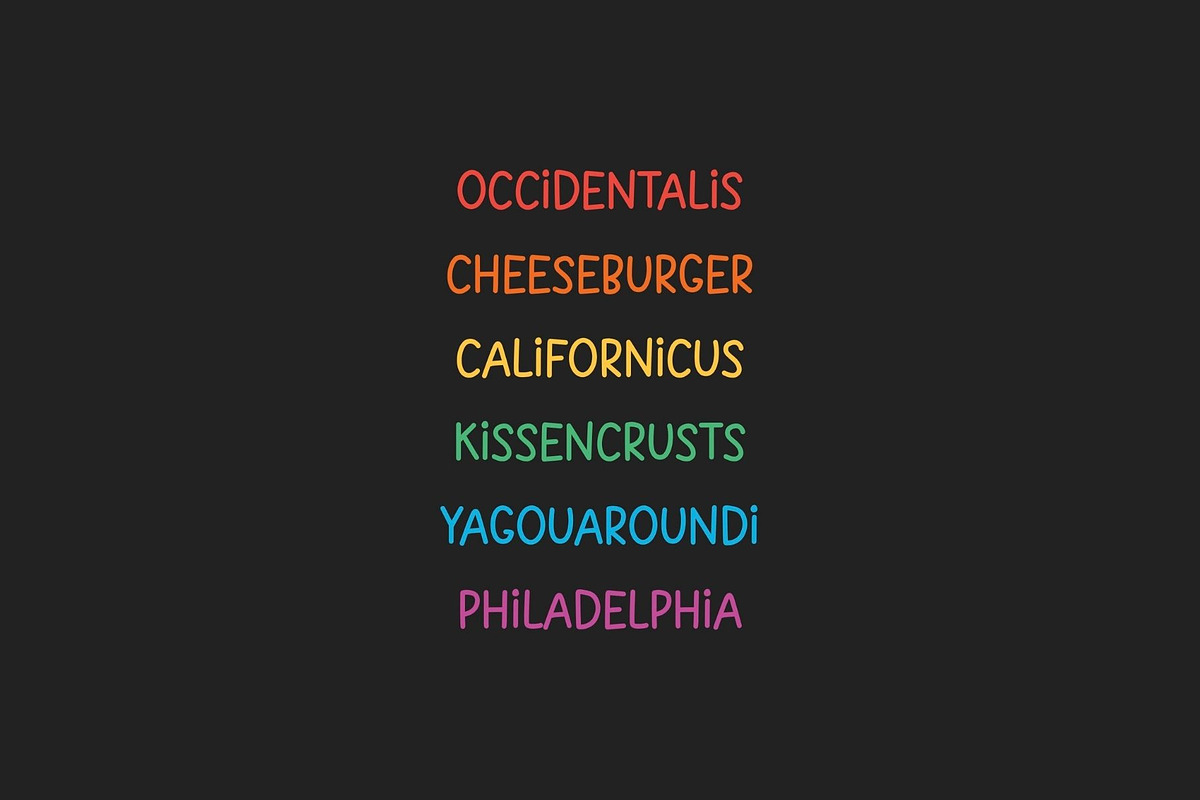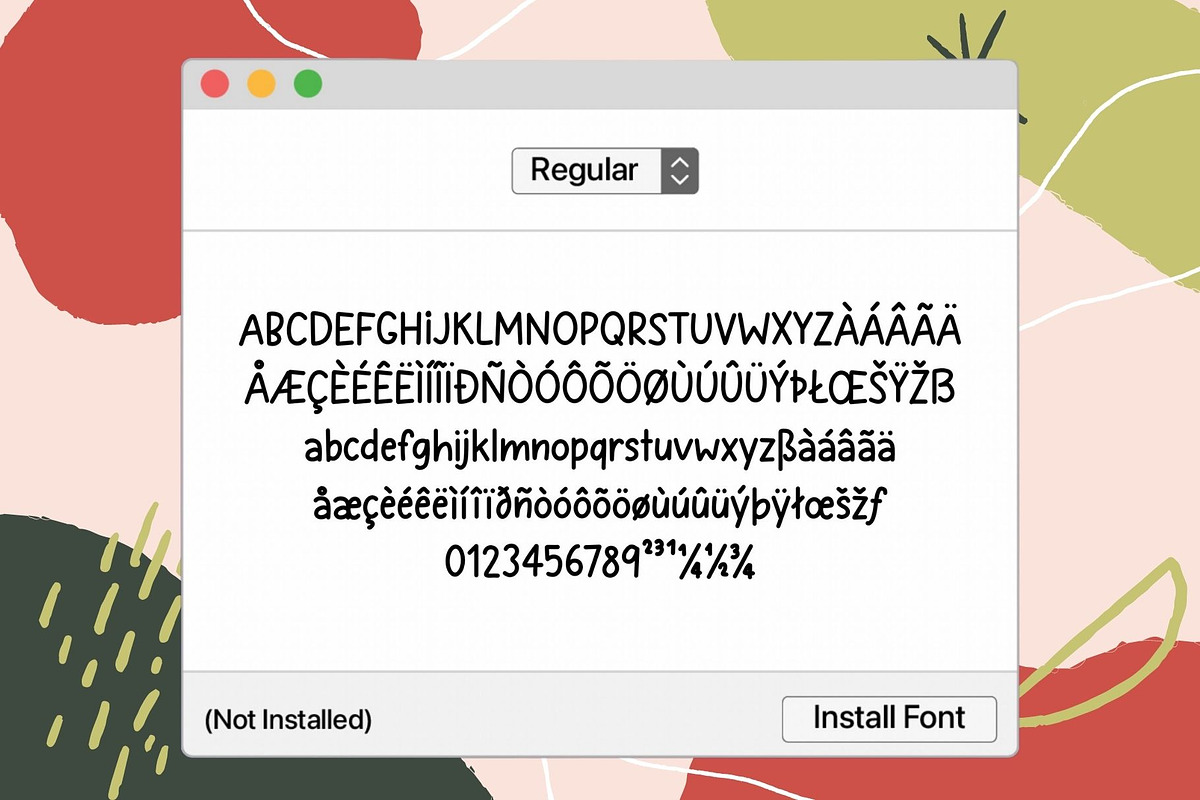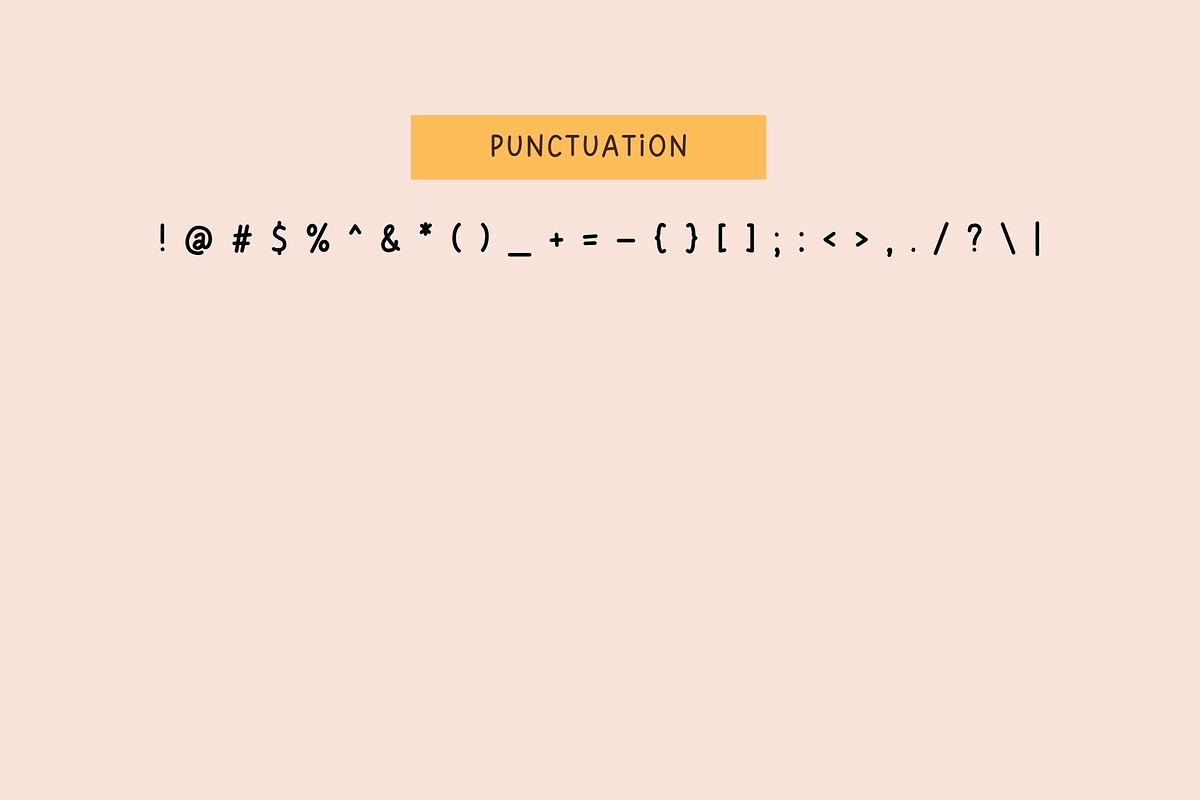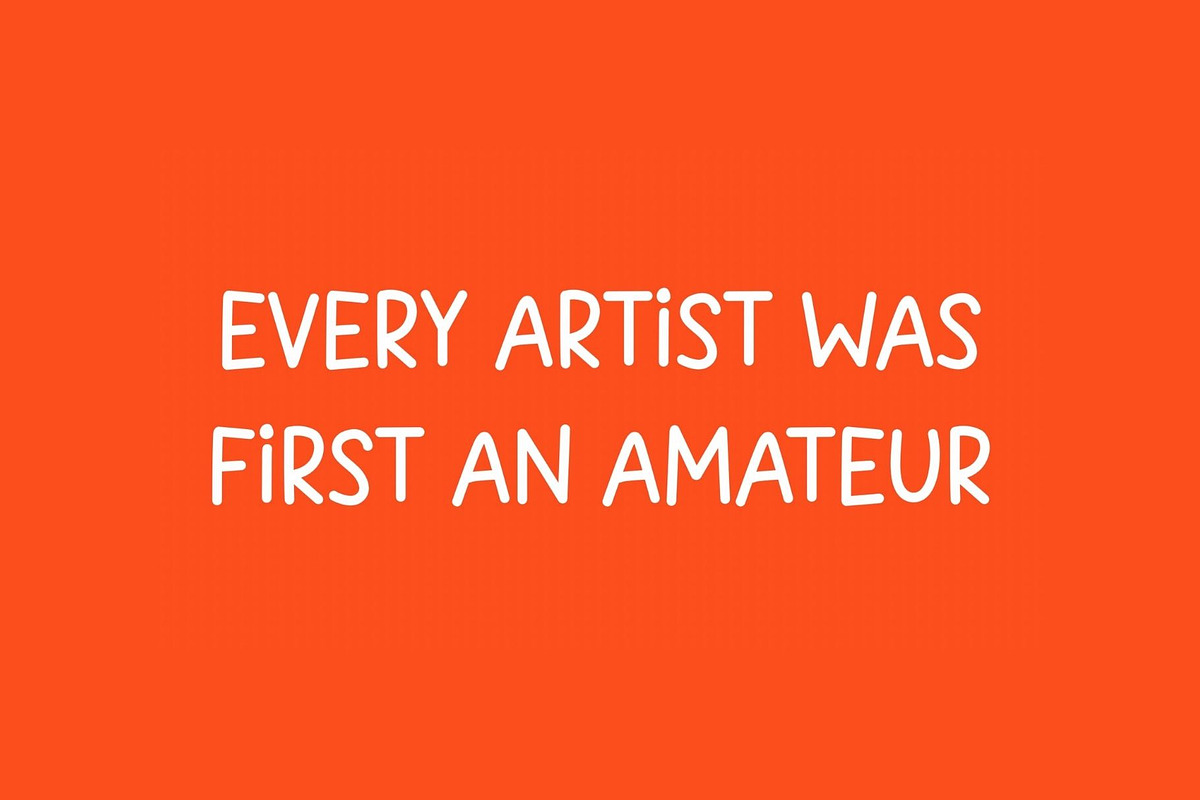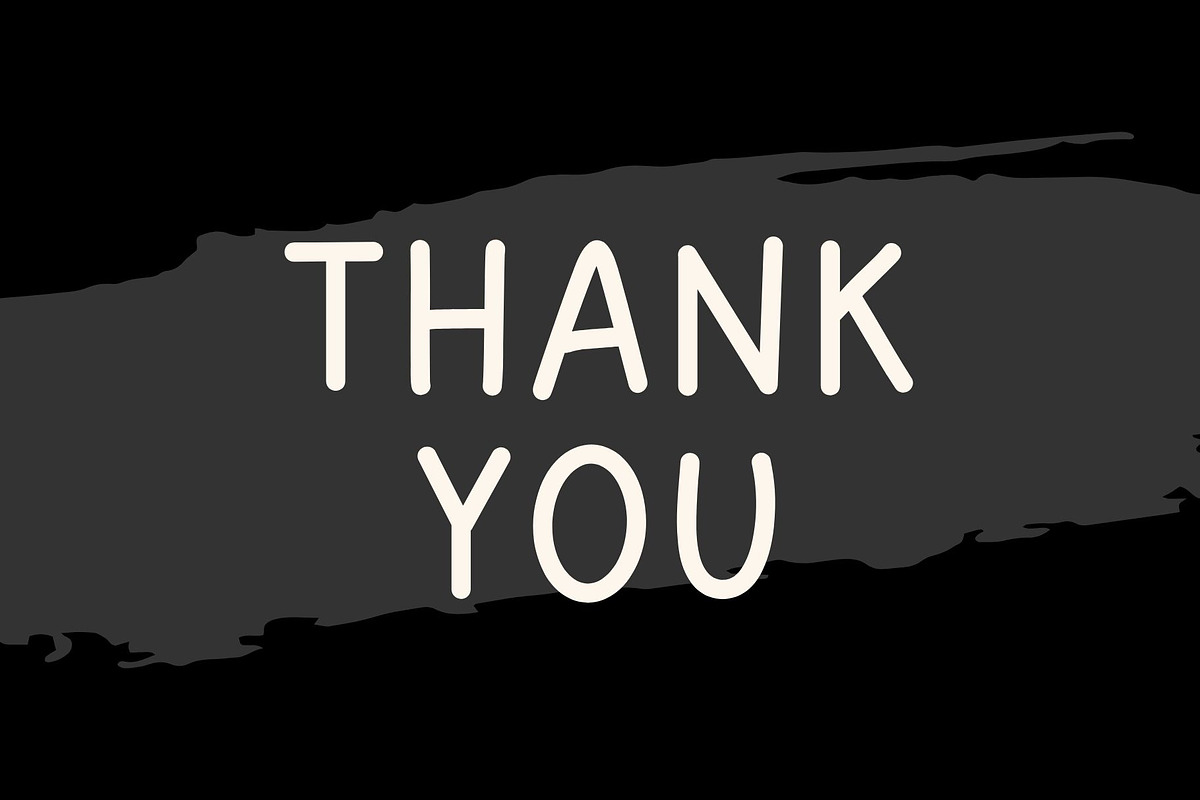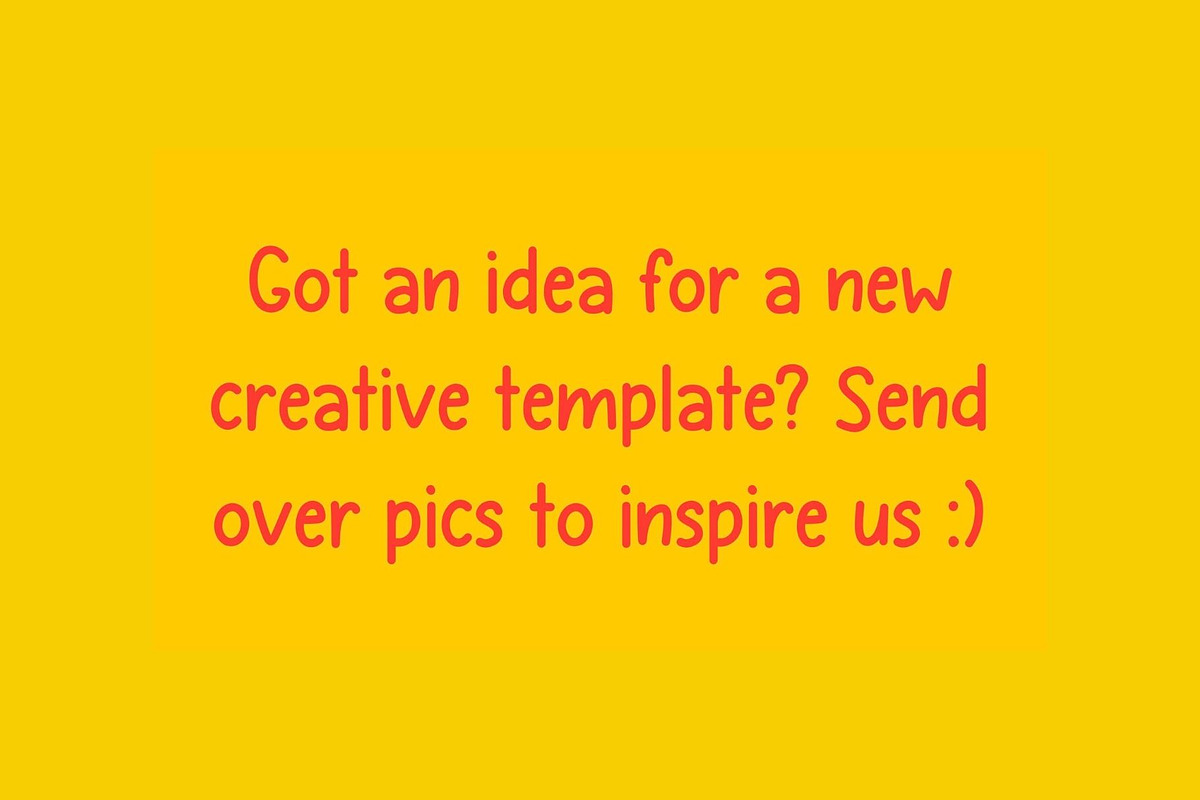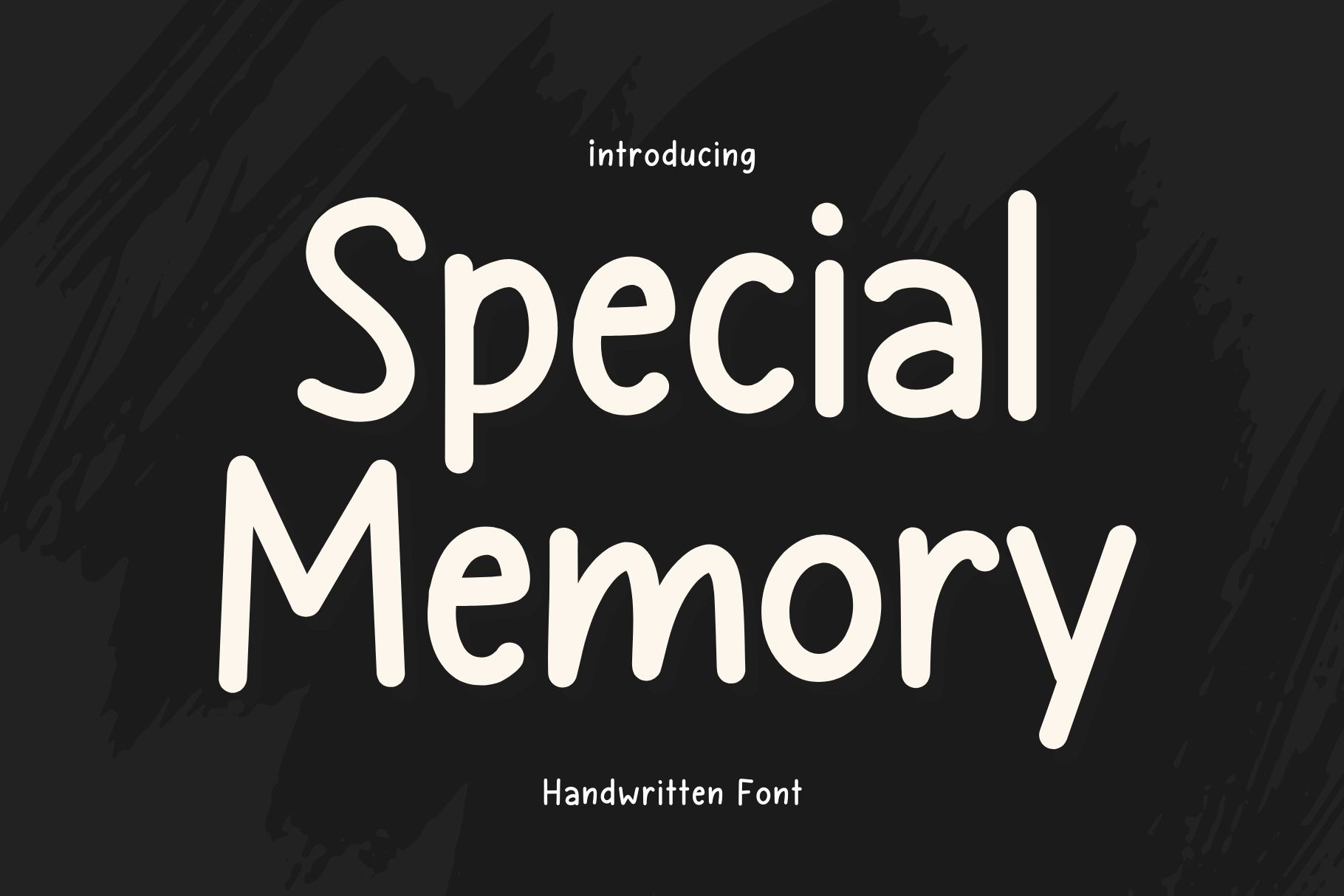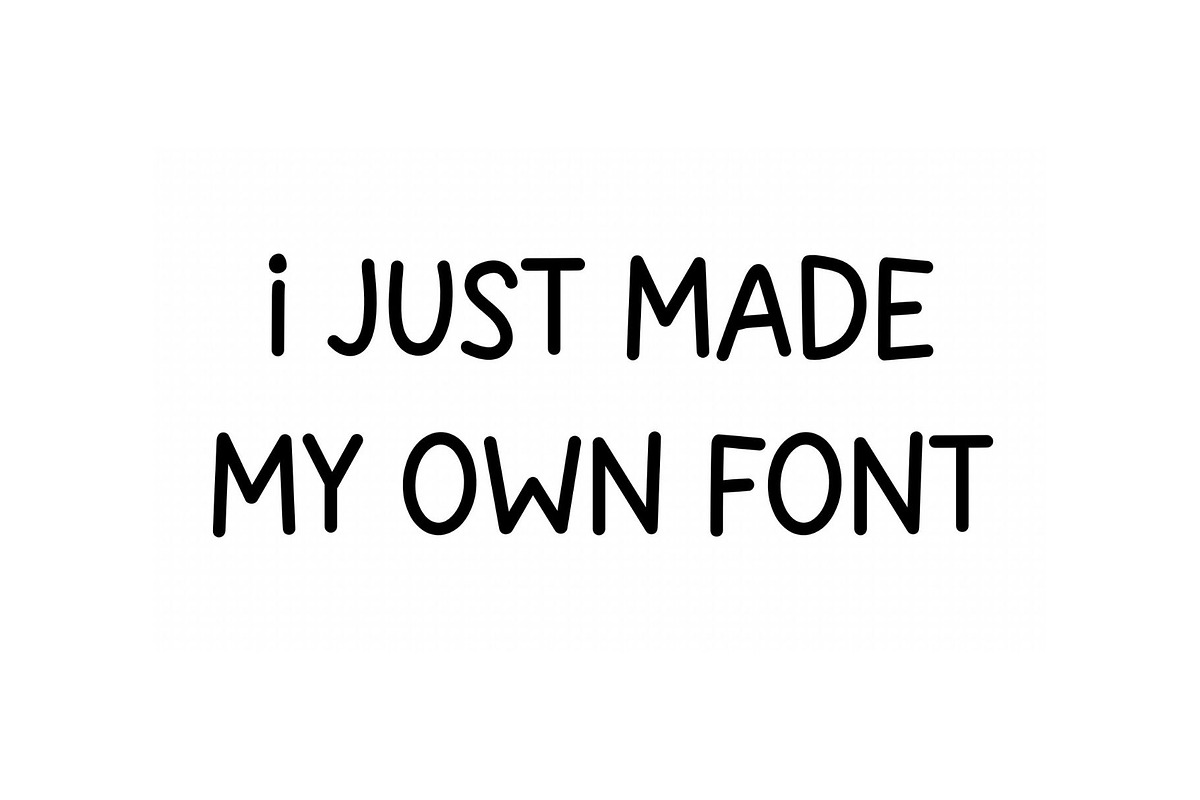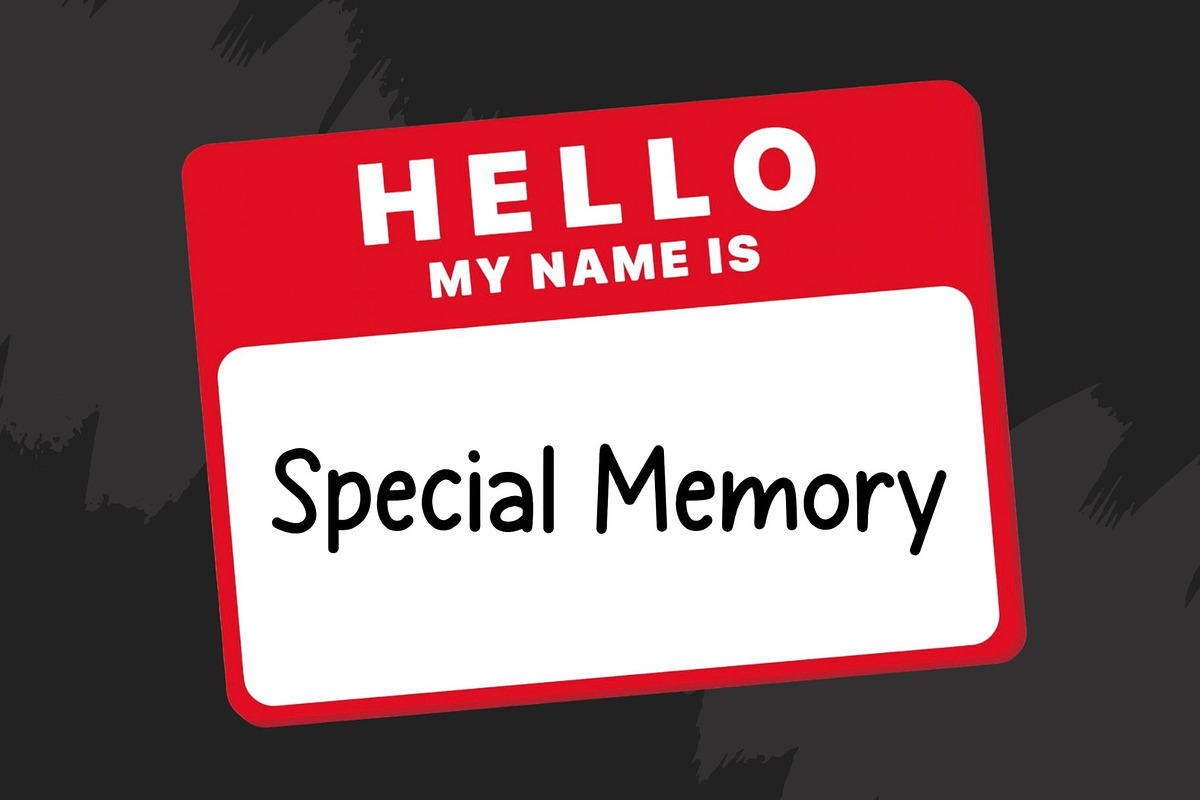
Special Memory is a handwritten font
Special Memory is a cute handwritten font. It embodies playfulness and authenticity and is the perfect choice for all your favorite projects such as blog posts, logos, branding, ads, invitations, greeting cards, planners, photo albums, decorations, and much more. Add it to any of your designs, and enjoy the results!